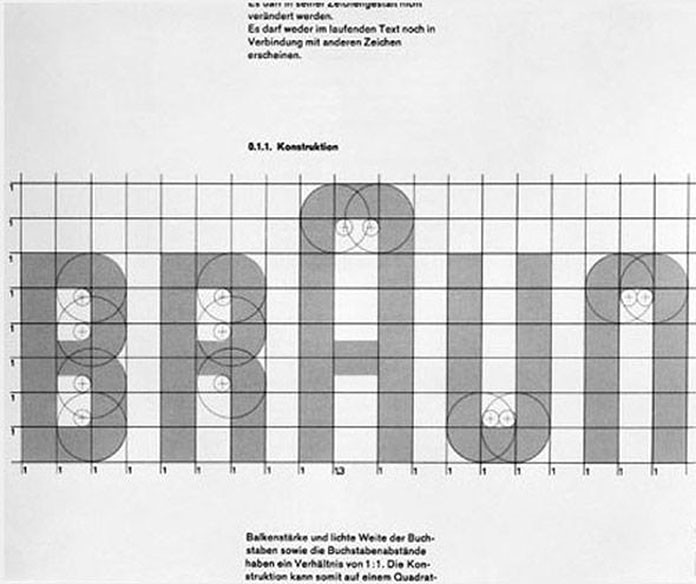
Artur and Erwin Braun didn’t see running a company as business management but more as a cultural project. In search of new designers they discovered the still young “College of Design” in Ulm, the continuation of the Bauhaus which was banned by the Nazis in 1933. Braun hired graphic designer Wolfgang Schmittel (1930 - 2013) to revamp the company’s graphical voice and marketing. Schmittel created in 1952 the compass-and-ruler typeface Braun and is considered as the pater familias of corporate design, who understood the long-term effect of a uniform company appearance - from stationery to user manuals to advertising.